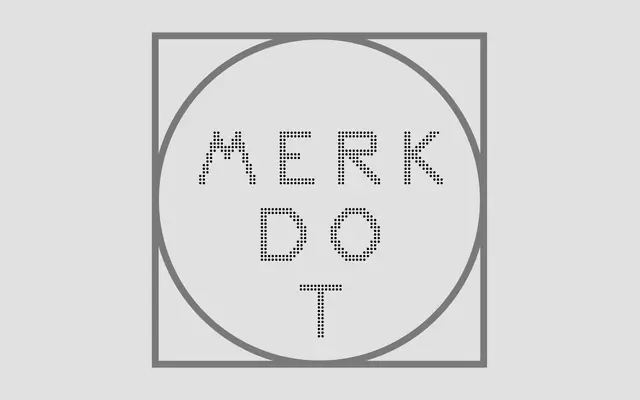
Merk Dot
A dot-matrix display face drawn from a 19th-century Dollfus-Mieg & Cie linen-stitching instruction alphabet, extended by A2-Type into a full character set across three weights.
The source material, a 'Merk Stich' specimen featuring uppercase letters only, has been expanded by A2-Type to include lowercase, numerals and punctuation. Three weights, Light, Medium and Bold, give the family modest range for display use. A companion pixel sans, Merk PiX, is available as a single weight for those wanting a related but more screen-oriented option.
Derived from a linen-stitching instruction alphabet, the typeface uses a dot-based construction that places it firmly in the display category as a decorative, grid-structured face with craft origins.